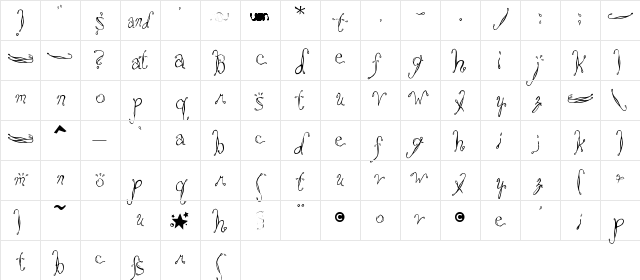
Saltwater Regular Free Font
Saltwater Regular
Complete Saltwater Regular glyph index. Displaying only characters natively supported by Saltwater Regular font.
Design Context for Saltwater
Saltwater is a composed and adaptable typeface that performs quietly and consistently across a wide range of design contexts.